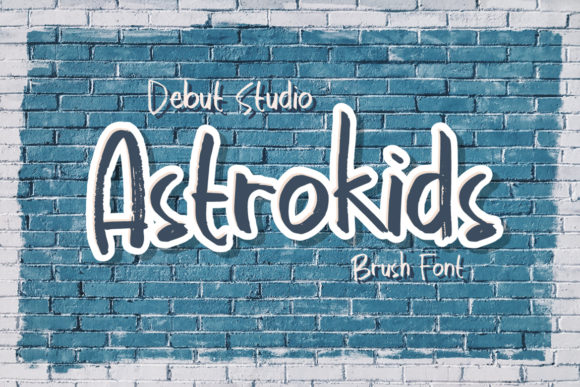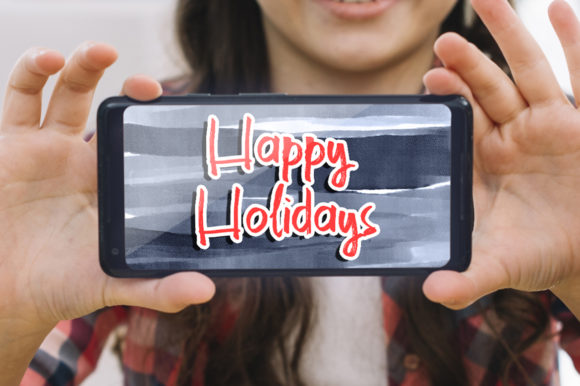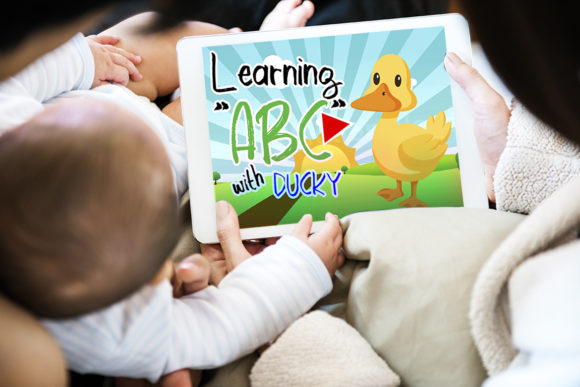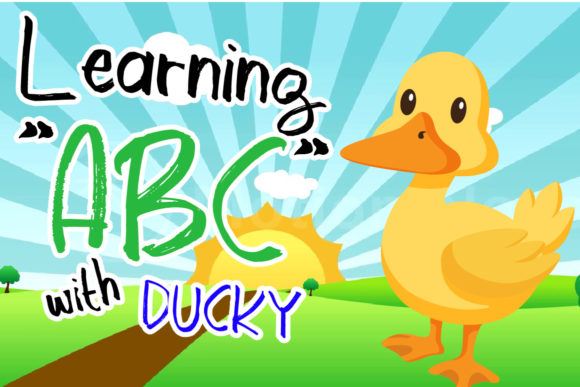
HomeScript FontsAstrokids Font Script Fonts Astrokids Font FacebookXPinterestWhatsApp Astrokids Font Poster 2 Astrokids Font Poster 3 Astrokids Font Poster 4 Astrokids Font Poster 5 About Astrokids Font Astrokids is a fun and playful handwritten font full of whimsical joy. Fall in love with this inspiring typeface! DOWNLOAD ON CREATIVE FABRICAThis font is sold and delivered by Creative Fabrica. Font Canyon may earn a commission if you buy through this link. People also explored Pretty Rose Font Here Comes the Sun Font Behind the Scene Font Melon Farm Font Thick Honey Font Angel Without Wings Font Headlock English Grotesque Brandogram Light – Monogram Typeface Font 351 0 TagsAstrokids Font Previous articleScapegrace FontNext articleBrittney Script Font LEAVE A REPLY Cancel reply Comment: Please enter your comment! Name:* Please enter your name here Email:* You have entered an incorrect email address! Please enter your email address here Website: Save my name, email, and website in this browser for the next time I comment. Personal Use Free Puisi Adinda Personal Use Free Read more about this font Aldenburg Personal Use Free Read more about this font Oaklevin Personal Use Free Read more about this font Whitelight Personal Use Free Read more about this font BLOG How to Cut Any Font on Cricut: Convert a Font to SVG (Free) Turn any font into a clean SVG so it cuts crisp on Cricut - a quick 3-step workflow using a free font-to-SVG tool. The 10 Best Handwriting Fonts to Add Personality to Your Designs Best Fonts for T-Shirt Design – Top 2025 Picks Modern Sans-Serif Fonts That Brands Love in 2025